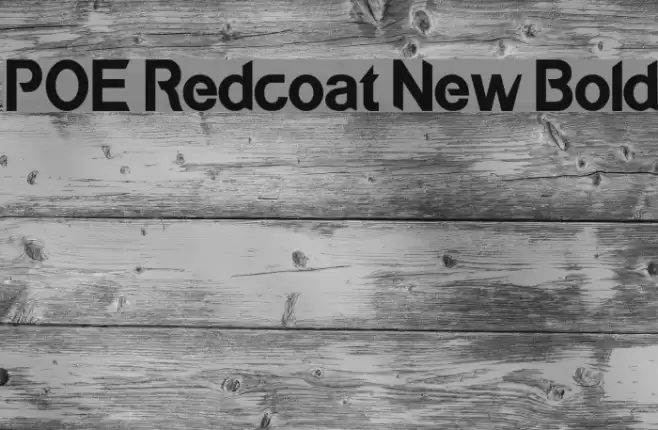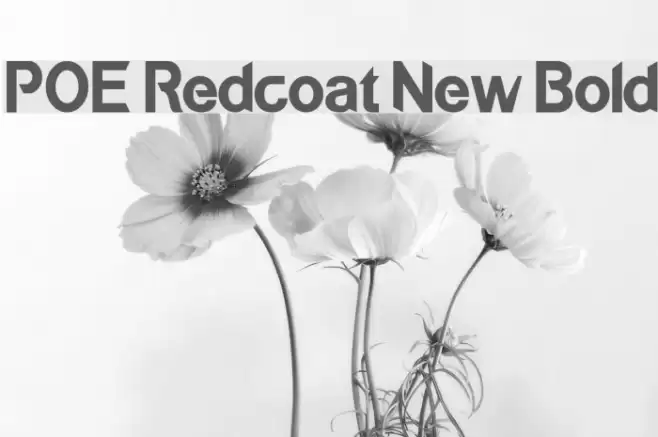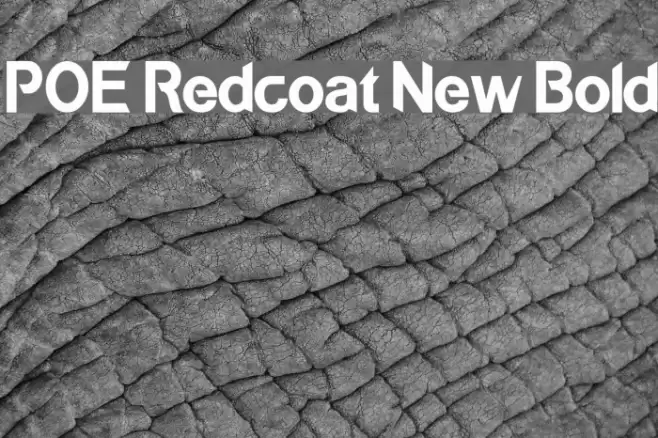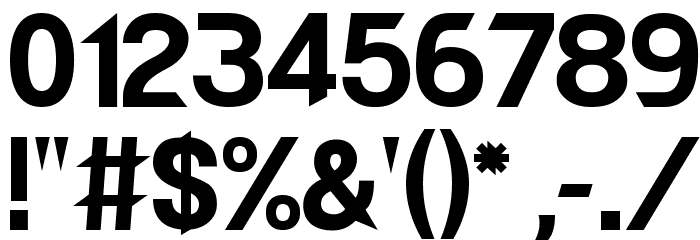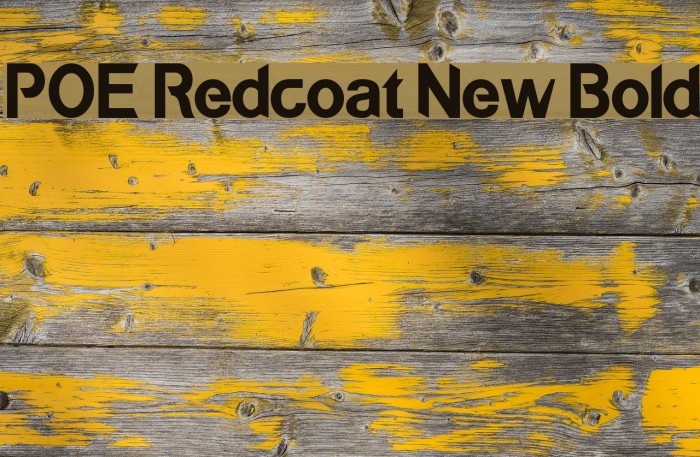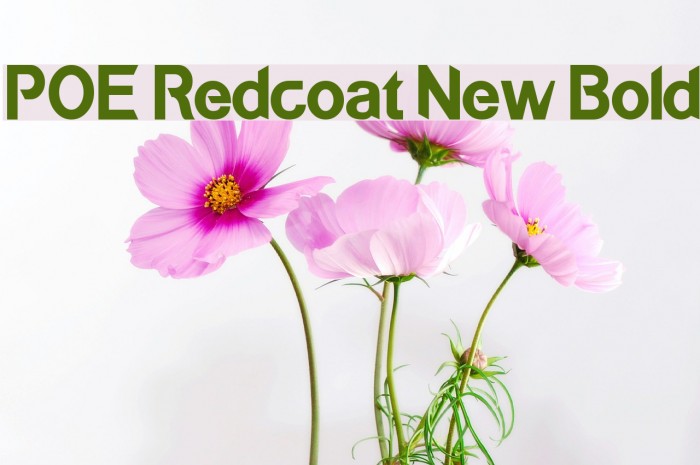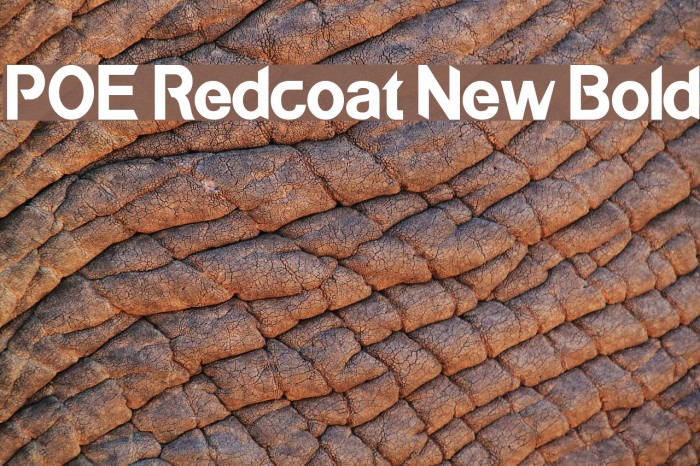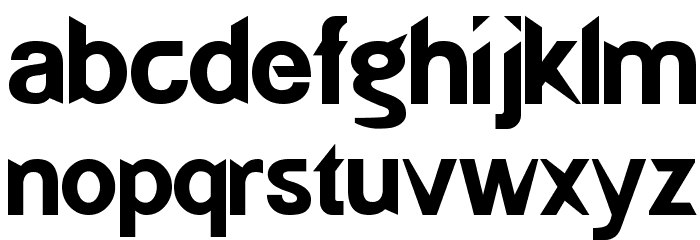
POE Redcoat New Bold Font
POE Redcoat New Bold Description
This font features a bold and assertive style with clean, geometric lines and a modern aesthetic. The uppercase letters are strong and impactful, while the lowercase letters maintain a consistent weight and structure, ensuring readability. The numerals are clear and well-proportioned, matching the overall boldness of the alphabet. Special characters are designed to complement the primary character set, maintaining the same bold and modern feel. The font's design is versatile, making it suitable for a variety of applications where a strong visual presence is required.
A bold, modern font with clean, geometric lines and strong visual impact.
- Category: Sans-Serif